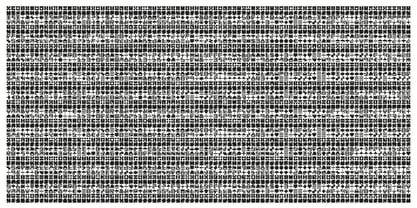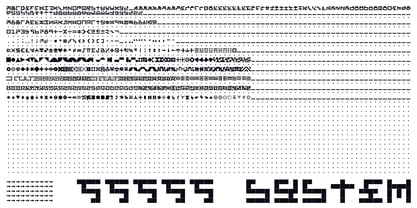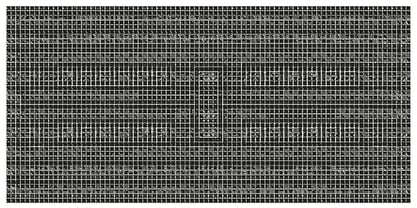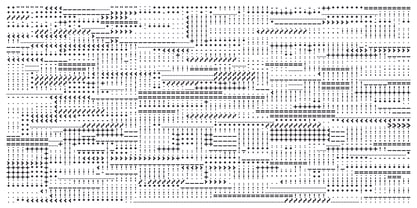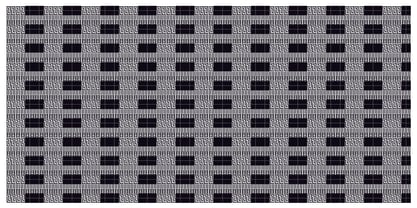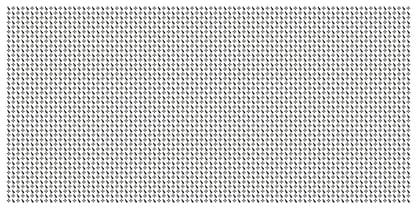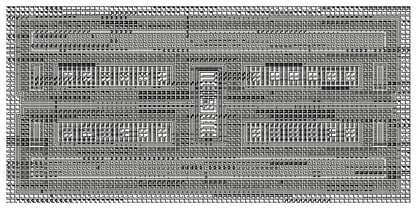
55555 System
by Luis Rutz
The 55555 System Font Family was designed by Luis Rutz and published by Luis Rutz. 55555 System contains 6 styles and family package options.
This open modular system uses the Unicode classification order to rethink the possibilities of a common font file to be a powerful controlling tool for all visual applications. Based on a simple 5×5 grid, providing more than 400 glyphs for Latin and Cyrillic script, plus numerous graphical elements, wildly combinable in an almost infinite manner.
About Luis Rutz
Deutscher Designer, lebt und arbeitet in München, Berlin und Paris. Hauptdisziplinen: Typografie, Schriftgestaltung und visuelle Systeme. Master-Alumnus der Bauhaus-Universität Weimar. Aktiv in den Bereichen Architektur, Kunst, Luxury und Fashion. Ziel ist visuelle Prägnanz, keine leeren Phrasen. Dem klassischen Ansatz verpflichtet, um neue, zukunftsorientierte Bilder zu schaffen.